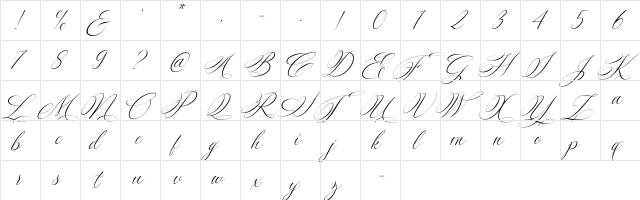
Silenter Regular
| Designer | Bluestudio |
Design Context for Silenter Typeface
Silenter is a composed and adaptable typeface that performs quietly and consistently across a wide range of design contexts.